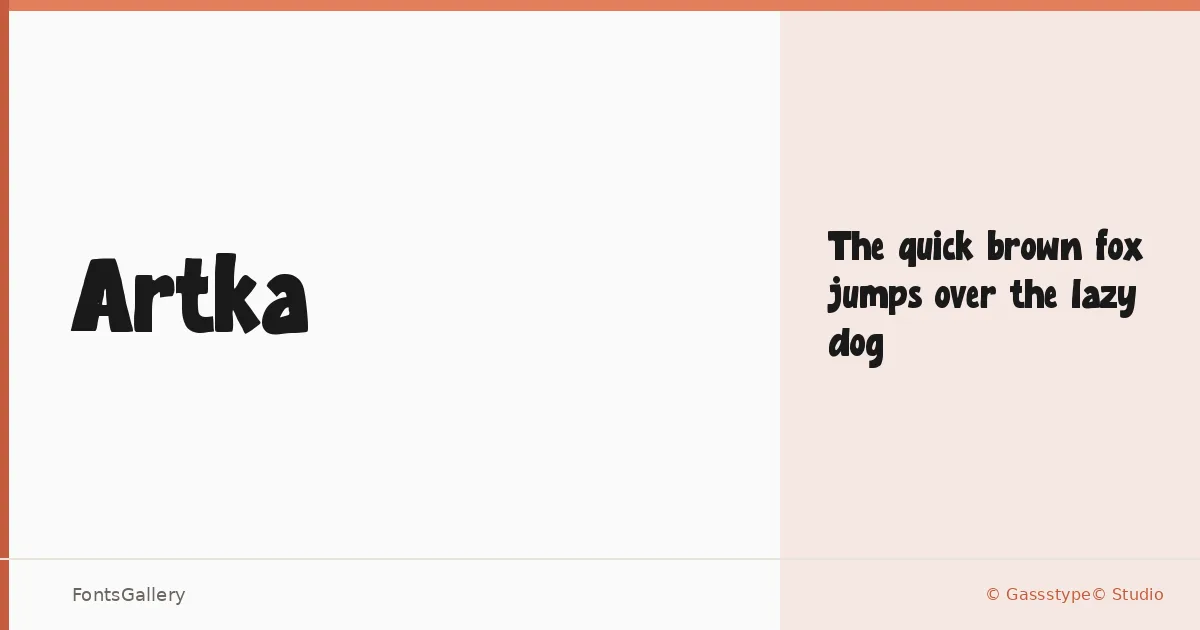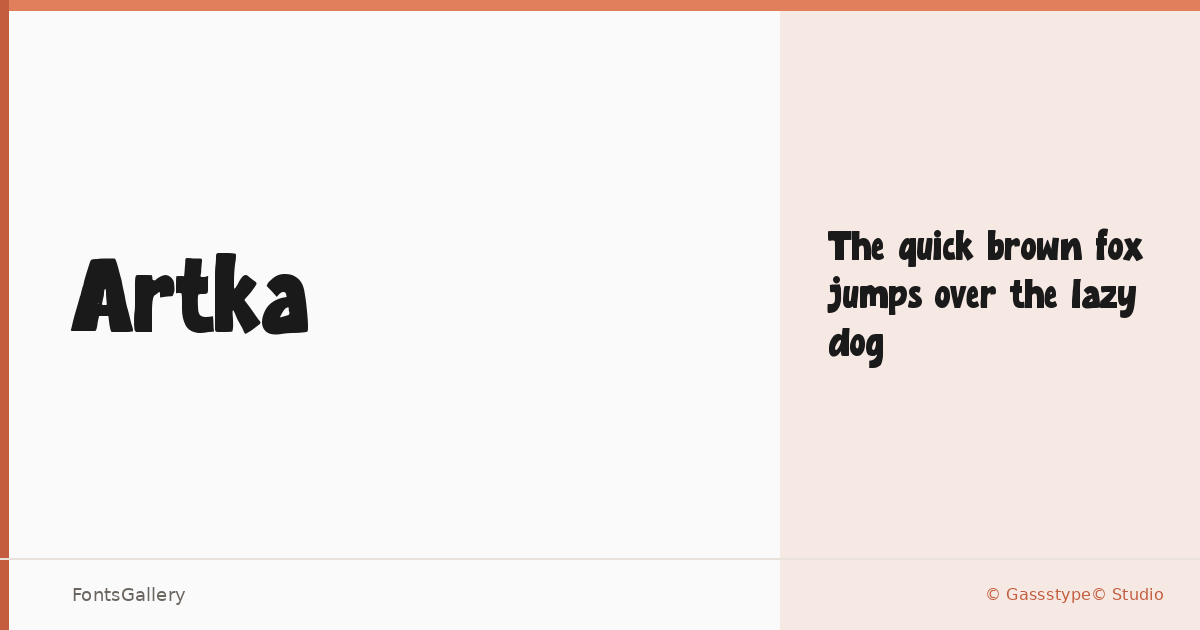
About Artka Font
There is a confident energy in these letterforms — the kind that stops a scroll or anchors a cover. Artka was designed by Anang F and Malik Wsn at Gassstype© Studio in 2022, and it comes as a single display cut built to command attention rather than blend in. The shapes carry a bold, modern sensibility with enough playfulness in the details to keep things from feeling heavy-handed.
This is a display face through and through — the Regular weight is drawn for scale, where its proportions and personality can fully land. The mood sits at the intersection of bold and playful: structured enough to feel intentional, loose enough to feel alive. Available in TTF and OTF, it covers Latin script and renders cleanly in both formats. Up close, the letterforms reward the kind of careful typesetting that headline and logo work demands.
It earns its place in branding systems, poster headlines, logo lockups, and T-shirt graphics — anywhere the type needs to carry visual weight from the first glance. For body copy or supporting text, it pairs well alongside Helvetica, Aileron, or Aresink for neutral contrast, and with Aranea, Alexandria, or a complementary display face when the composition calls for something more expressive alongside it.